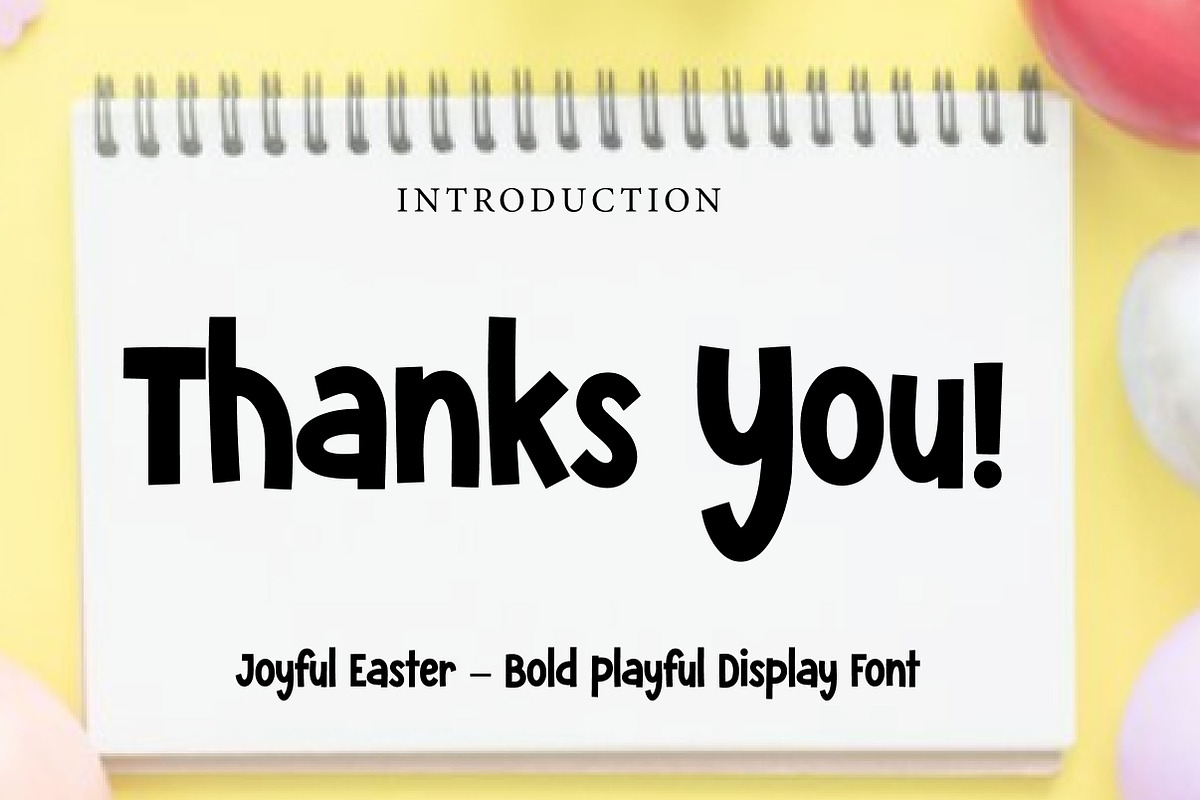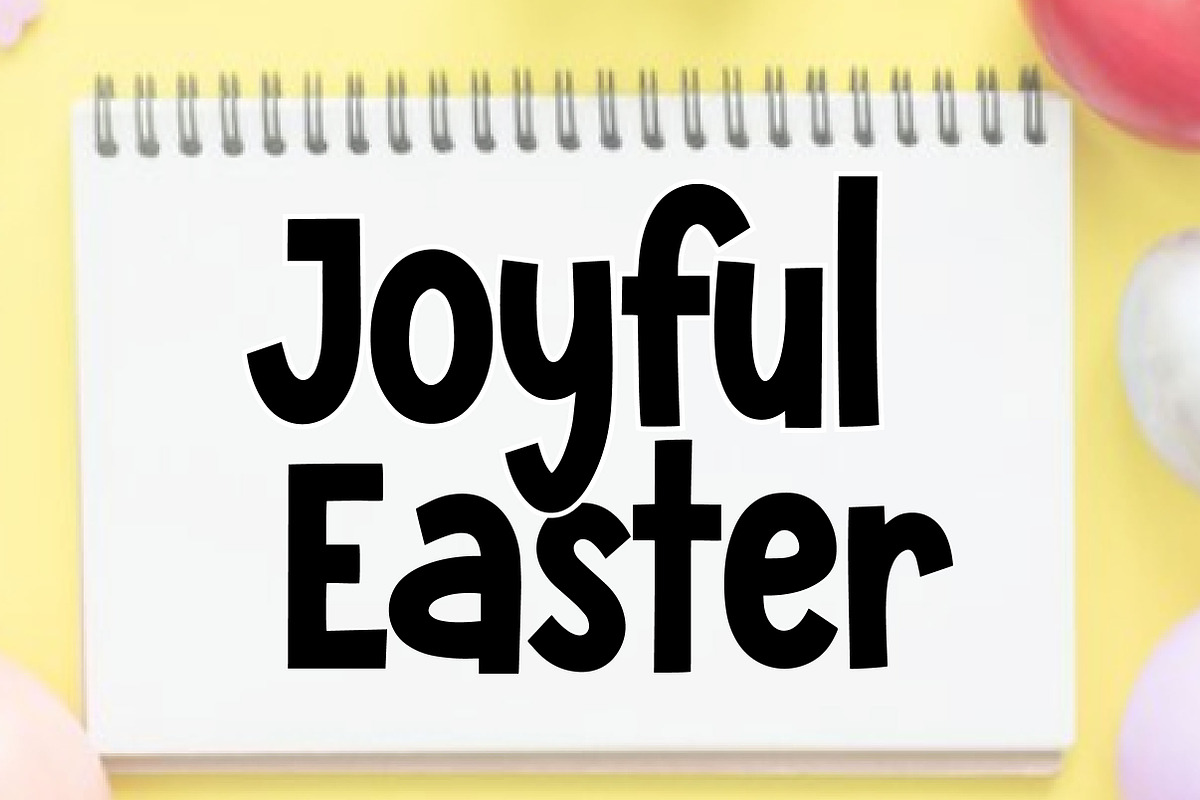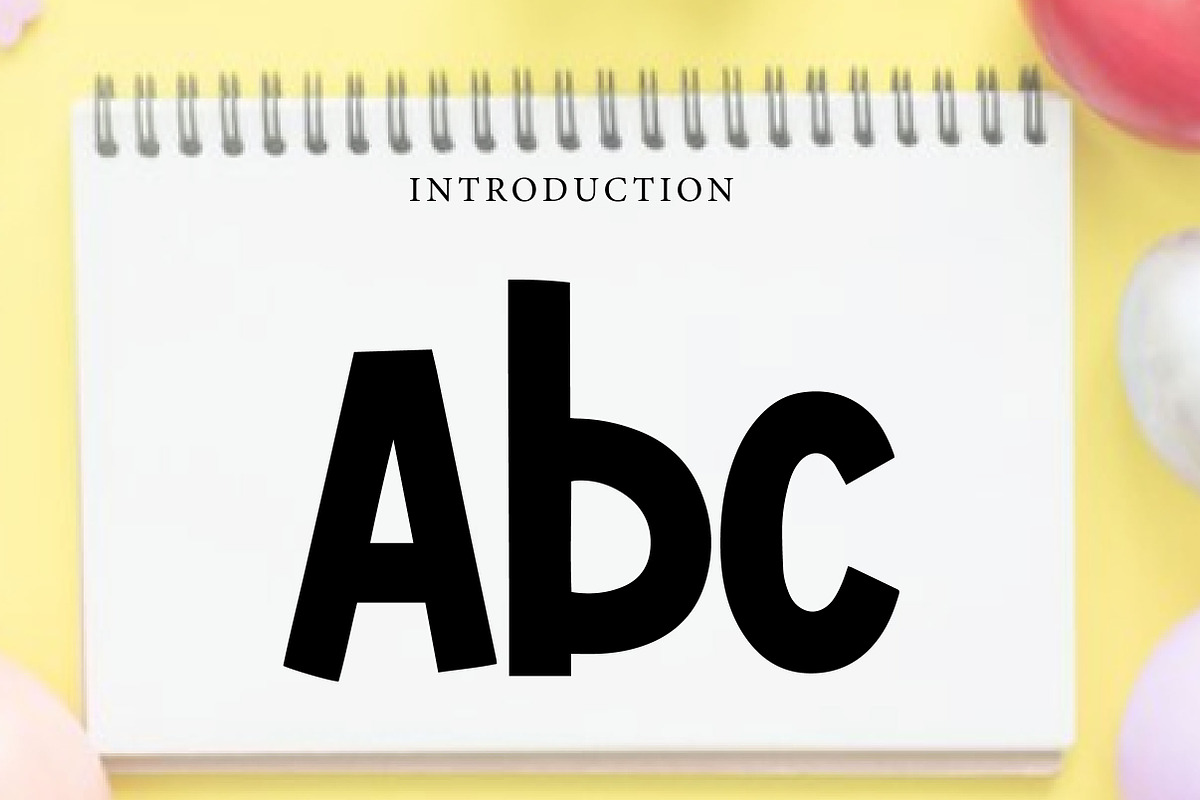
Joyful Easter
Joyful Easter – Bold Playful Display Font
Joyful Easter is a bold, fun, and playful display font, perfect for Easter designs, spring projects, kids branding, packaging, invitations, and cheerful creative work.
Joyful Easter is a lively and cheerful display font designed to bring happiness, warmth, and playful energy into your designs. With its bold structure, rounded curves, and slightly quirky letterforms, this font creates a fun and eye-catching look that feels perfect for festive and seasonal themes.
Its playful personality makes Joyful Easter an excellent choice for projects that need a bright and friendly touch. Whether you are creating Easter cards, spring event invitations, product packaging, kids branding, social media graphics, stickers, or fun logo concepts, this font helps your typography stand out in a charming and memorable way.
The bold shapes keep your text readable and impactful, while the playful details add character and joy. Suitable for both print and digital use, Joyful Easter is ideal for designers who want a font that feels festive, energetic, and full of charm.
Perfect For Easter and spring designs Greeting cards Holiday invitations Kids branding Product packaging Social media graphics Stickers and labels Posters and flyers Cute logos and headlines Festive typography layouts Font Features Uppercase letters Lowercase letters Numbers & punctuation Bold playful style Rounded and expressive shapes Cheerful and friendly look Perfect for display use